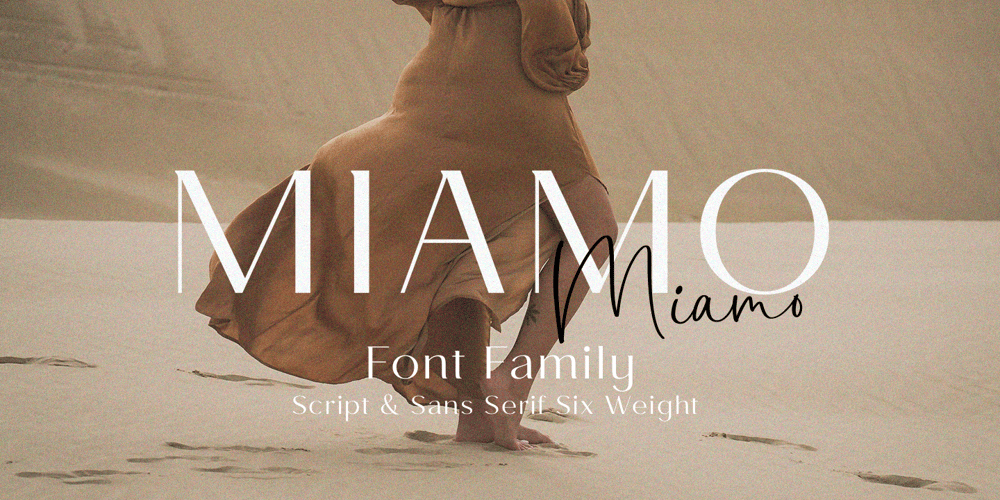
Miamo Font Family was designed by Pavel Larin and published by Larin Type Co. Miamo contains 7 styles and family package options. Miamo is an elegant and modern font family. It includes script font and sans serif in six weights from Thin to Bold. Sans serif font is a multi-purpose font that is perfect for any project, it is contrasted, modern and easy to read. With it, you can create logos, use in advertising, packaging, book covers and magazines, headings, descriptions and much more. Handwritten script font elegant and charming, it includes alternatives and a variety of ligatures that will make your project unique. This font is easy to use has OpenType features.